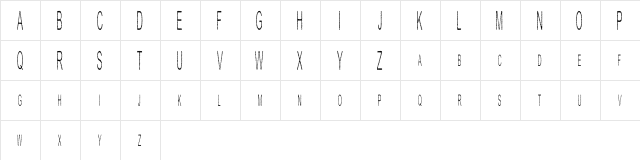
Shock Shock Regular Font Preview
Shock Shock Regular
Design Context for Shock Shock Typeface
Shock Shock offers clean, dependable letterforms without strong stylistic allegiance, making it a practical choice for designers who need flexibility.